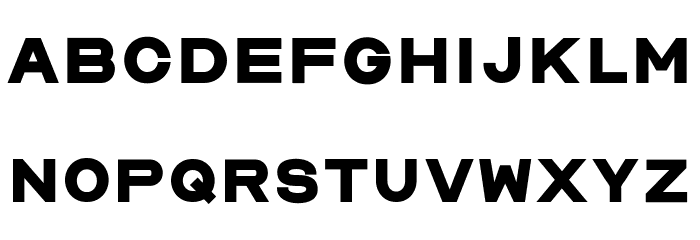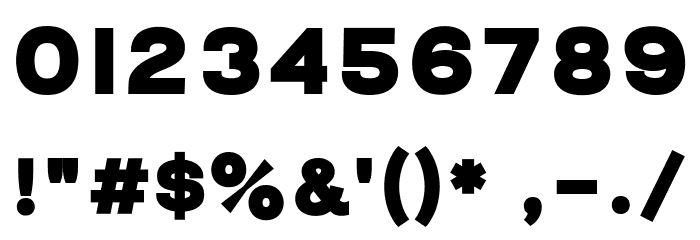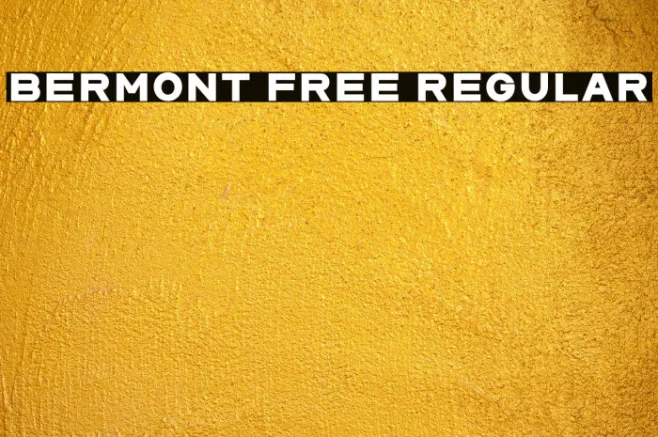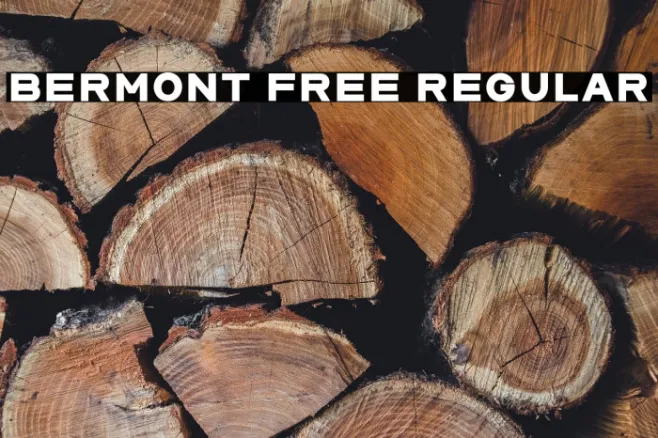
Bermont Free Regular Font
This font features a bold and strong geometric design, characterized by thick, uniform strokes and a modern aesthetic. The uppercase letters are particularly striking, with a consistent height and width that convey a sense of stability and confidence. The lowercase letters maintain this boldness, offering a seamless transition between cases. Numbers and special characters are equally robust, ensuring clarity and impact in any context. The overall design is clean and straightforward, making it suitable for a variety of applications where readability and a contemporary look are desired.
A bold, geometric font with a modern and confident style.
- Proposed Projects: Ideal for branding, headlines, posters, and any project requiring a strong visual impact.